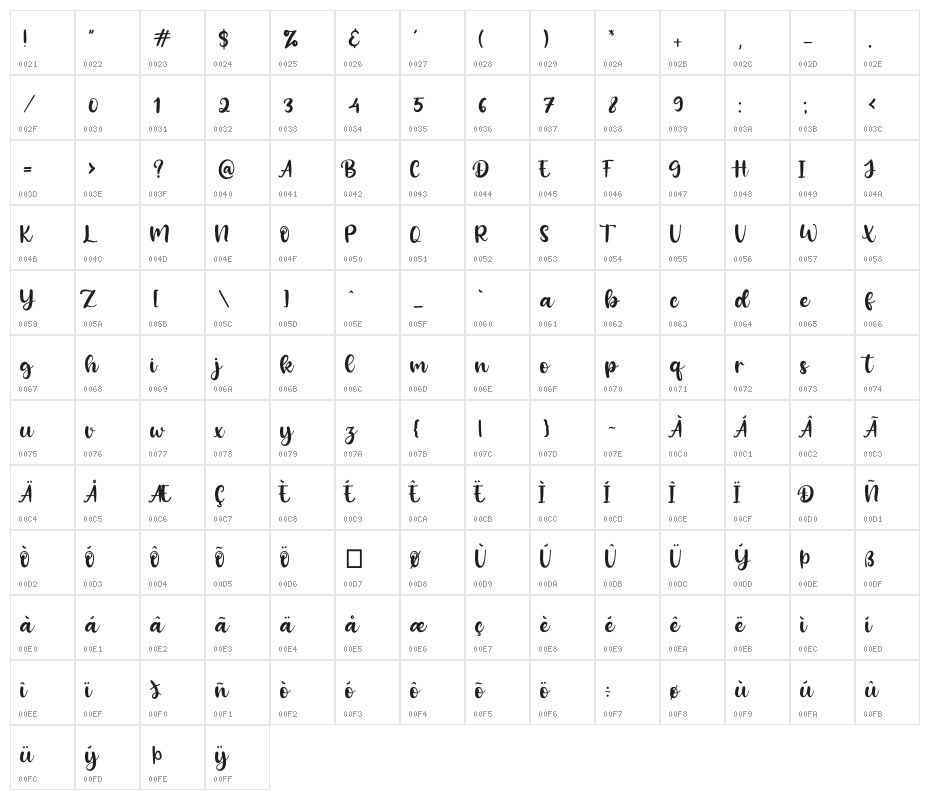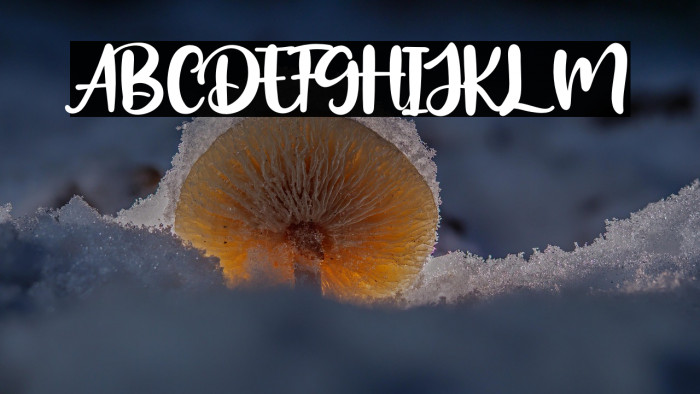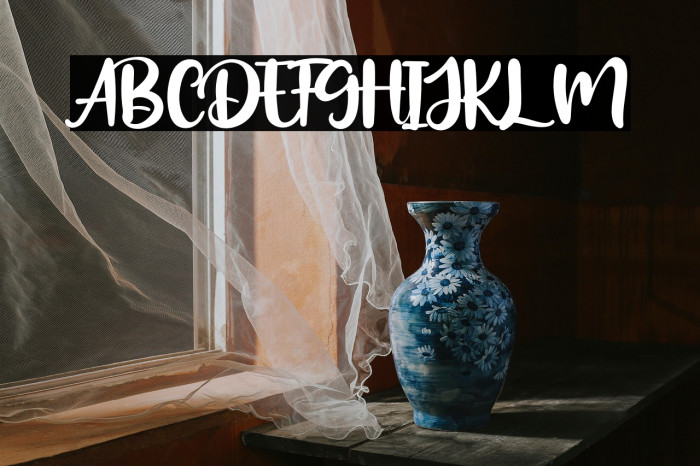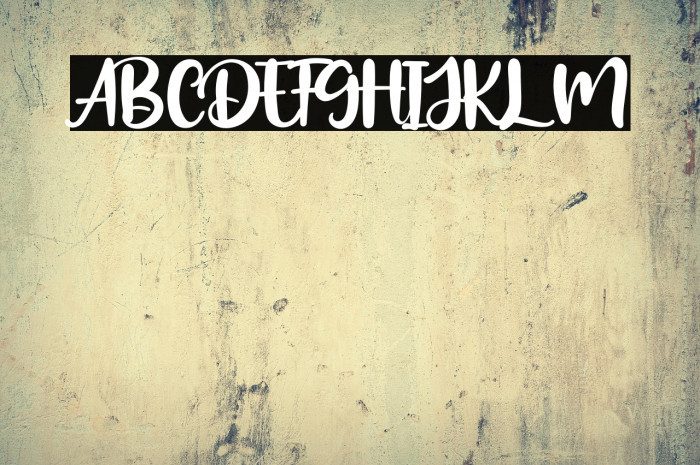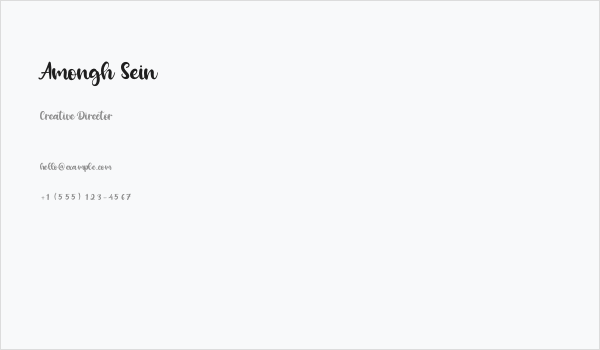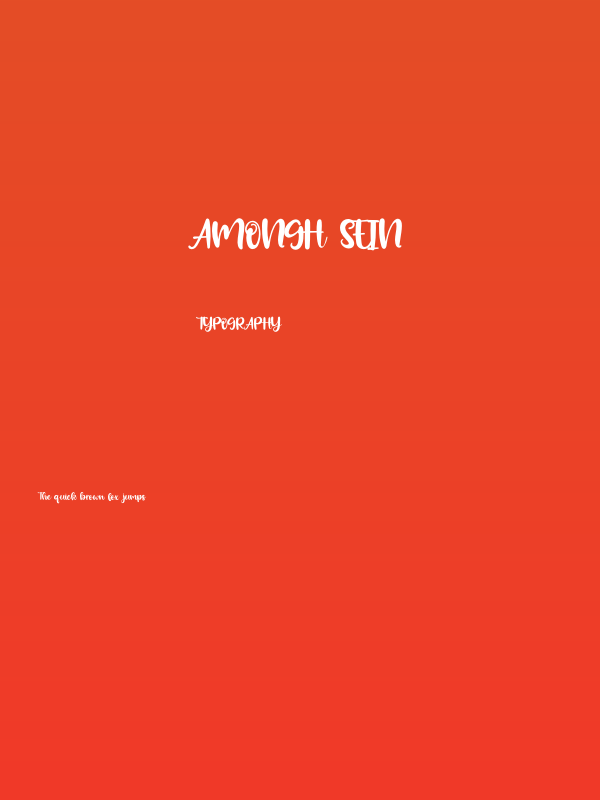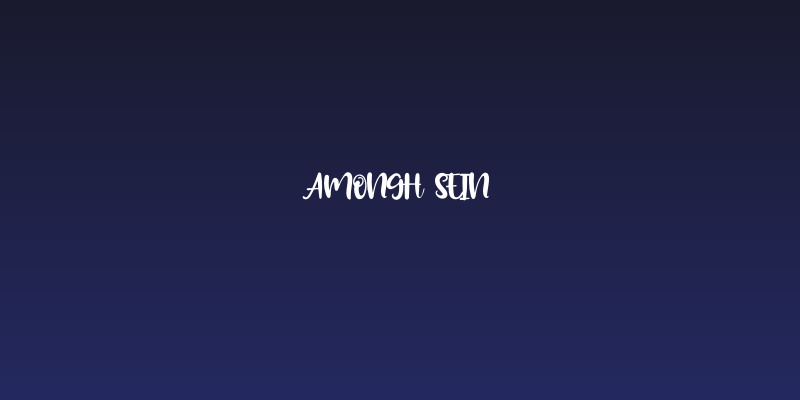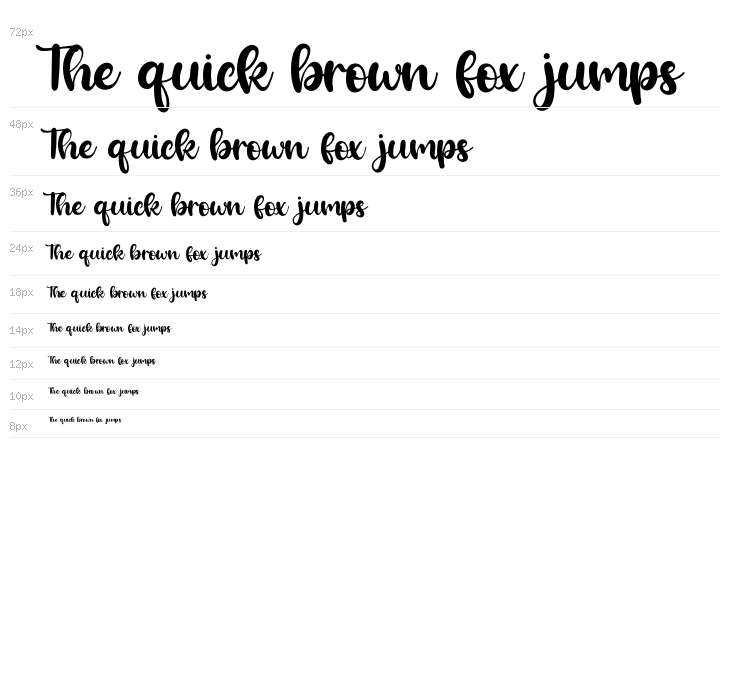
Amongh Sein Font
Amongh Sein Description
This font features a playful and artistic script style with a flowing, cursive appearance. The characters are interconnected, creating a sense of fluidity and movement. The uppercase letters are bold and expressive, while the lowercase letters maintain a consistent, rounded form. The numbers and special characters complement the overall style with their unique, hand-drawn look. This font exudes a sense of creativity and elegance, making it suitable for projects that require a personal touch.
| Use Case | Logos, Invitations, Creative projects |
| Proposed Projects | Ideal for wedding invitations, greeting cards, branding, and creative design projects. |